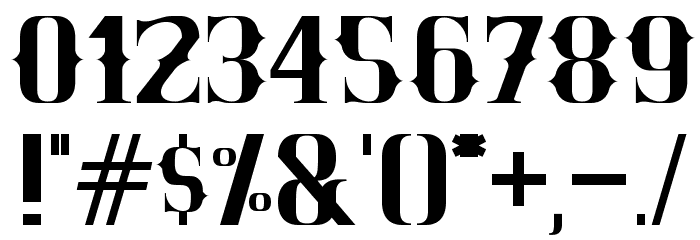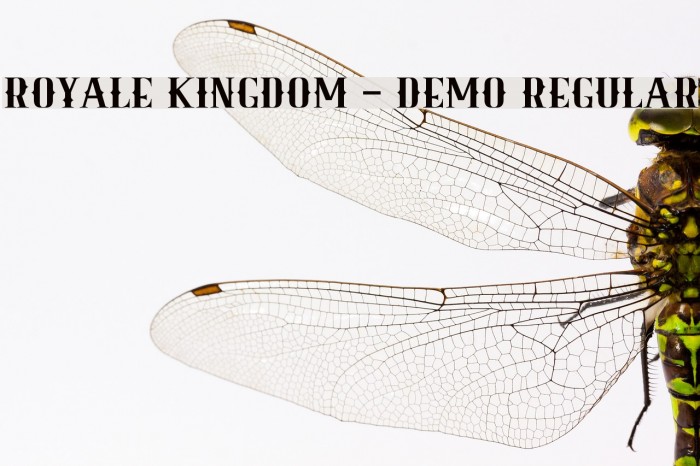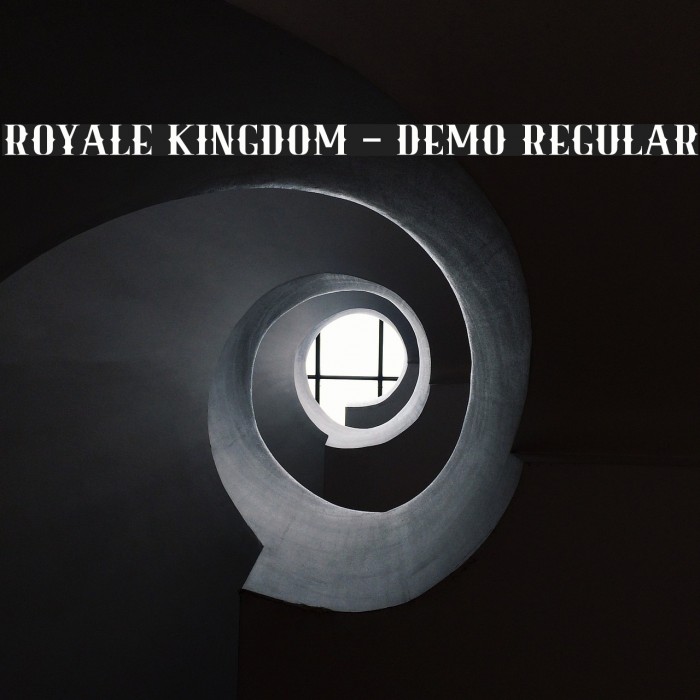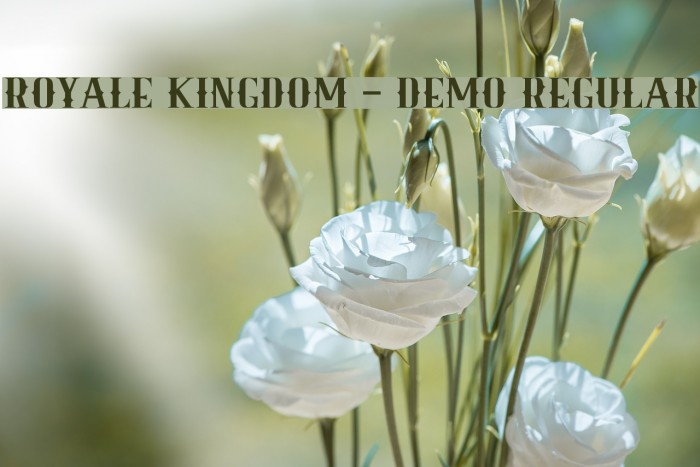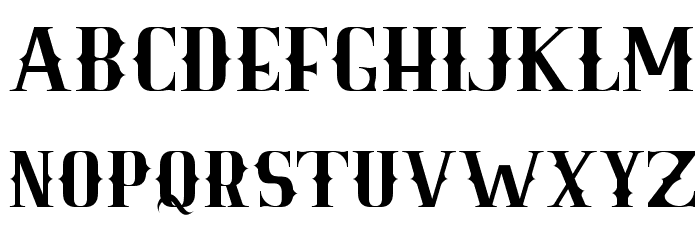
Royale Kingdom - DEMO Regular Font
Royale Kingdom - DEMO Regular Description
This font features a bold and dramatic style with sharp, angular serifs and a strong presence. The uppercase letters are particularly striking, with a medieval or gothic influence that adds a sense of grandeur and authority. The numbers and special characters maintain this bold aesthetic, making them stand out prominently. The overall design is highly decorative, with intricate details that suggest a sense of tradition and history. This font is well-suited for projects that require a touch of elegance and sophistication, such as invitations, posters, or branding for luxury products.
| Overall Style | Vintage |
| Use Case | Logos, Headlines |
| Proposed Projects | Ideal for luxury branding, invitations, posters, and historical-themed designs. |